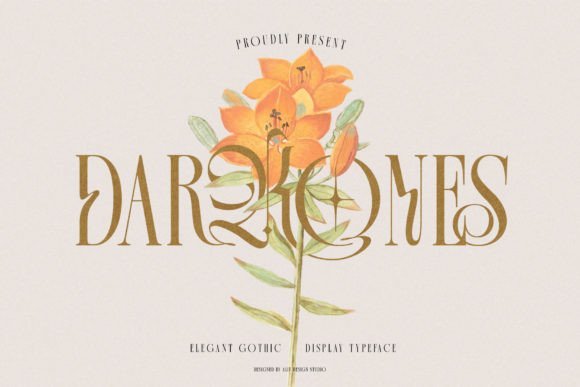
The Perfect Blend of Edginess and Elegance: Unveiling the Darkones Font
Have you ever been browsing through a magazine or scrolling through social media and stumbled upon a design that just stopped you in your tracks? A bold, striking font that screams attention and personality? That’s exactly what the Darkones Font aims to achieve. This unique typeface is a masterful blend of blackletter and dynamic serif styles, making it the perfect choice for designers looking to add a touch of edginess to their projects.
The Darkones Font is a powerhouse of 756 characters, including swashes, special ligatures, and alternative characters, ensuring that designers have endless possibilities at their fingertips. With its support for PUA unicode and multilingual capabilities, this font is a valuable asset for any designer looking to take their projects to the next level.
Key Features of Darkones Font
- Font Family: Darkones Font is a custom-designed font family, consisting of multiple styles, including bold, regular, and italic.
- Unique Characteristics: Darkones Font features a unique blend of modern and mystical elements, with intricate details and ornate flourishes.
- Character Set: Includes a comprehensive character set, covering a wide range of languages, including Latin, Cyrillic, and Greek alphabets.
Designer Review: Darkones Font
Overall, I’d say Darkones Font is an intriguing addition to any designer’s toolkit. Here are my thoughts on what works well:
- ✨ Unique aesthetic: Darkones Font brings a distinct, otherworldly vibe that can add a touch of mystique to any project.
- ✨ High level of customization: The font offers a range of styles and weights, allowing designers to experiment with different looks and feels.
- ✨ Good legibility: Despite its unconventional design, Darkones Font remains relatively easy to read, even at smaller font sizes.
- ⚠️ Limited language support: Darkones Font may not be suitable for projects that require a wide range of language support.
- ⚠️ May not be suitable for body text: While the font is great for headlines and titles, it may not be the best choice for large blocks of body text due to its unconventional design.
- ⚠️ Requires careful pairing: Darkones Font may not pair well with other fonts, so designers will need to be mindful of their typography choices.
Overall, I think Darkones Font is a great choice for designers looking to add some edge to their projects. Just be aware of its limitations and use it judiciously.
Tips for Getting the Most Out of Darkones Font
Use Darkones Font to create dramatic and mysterious designs. It pairs well with dark or muted color schemes. Experiment with different font sizes and styles to achieve the desired effect.
Use Darkones Font for:
- Horror-themed designs
- Dark fantasy art
- Mysterious and suspenseful presentations